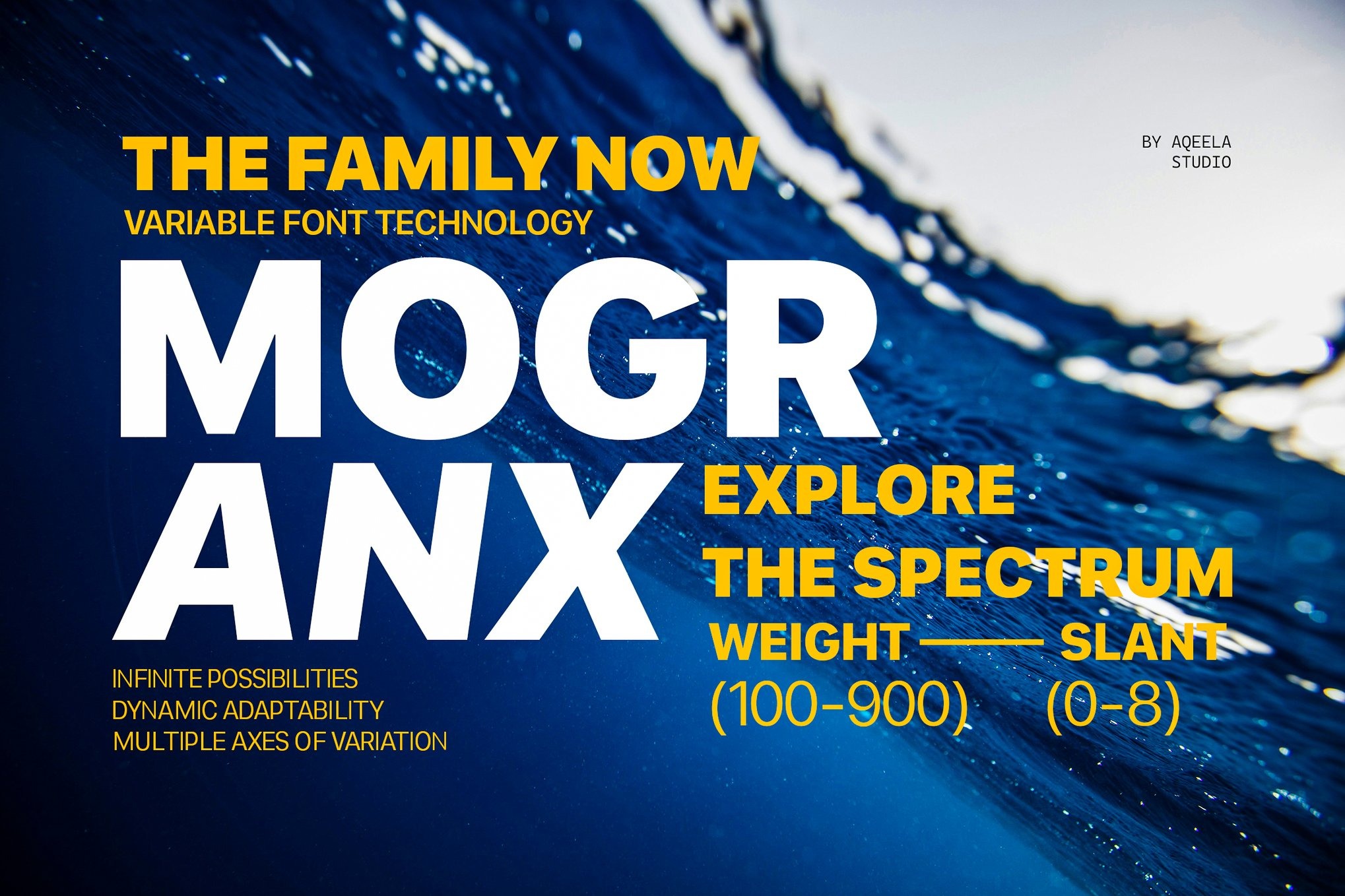
Mogranx Font Family
Mogranx Font Family is a versatile font designed to adapt beautifully across different design styles, offering dependable readability and balance. Mogranx is a powerhouse sans-serif family designed for ultimate flexibility. Built with cutting-edge Variable Font technology, Mogranx allows you to precisely control weight and slant within a single file, offering dynamic adaptability for any professional design project. Drawing inspiration from high-end editorial layouts and modern “Brutalist” aesthetics, this font features bold, clean lines and exceptional legibility. Whether you are working on high-impact branding, sophisticated magazine spreads, or futuristic web headers, Mogranx provides the “infinite possibilities” your creative work demands.